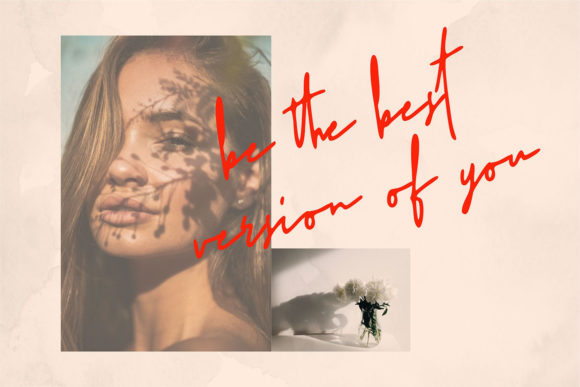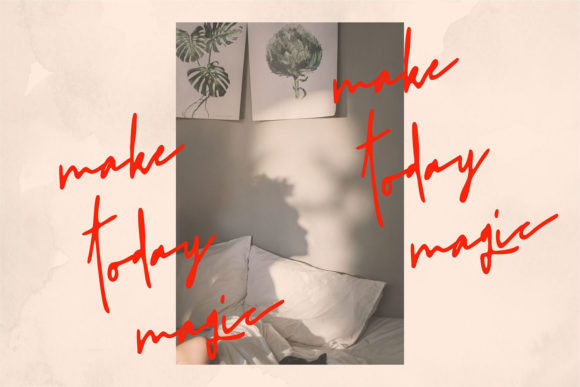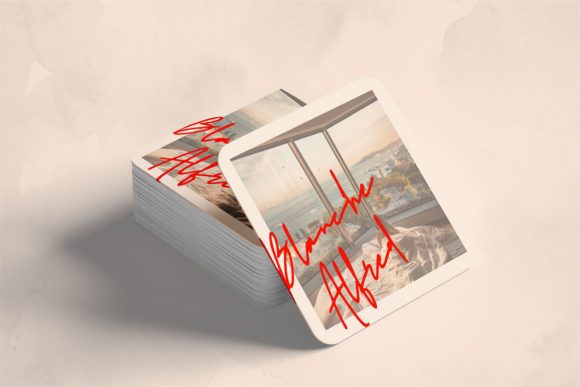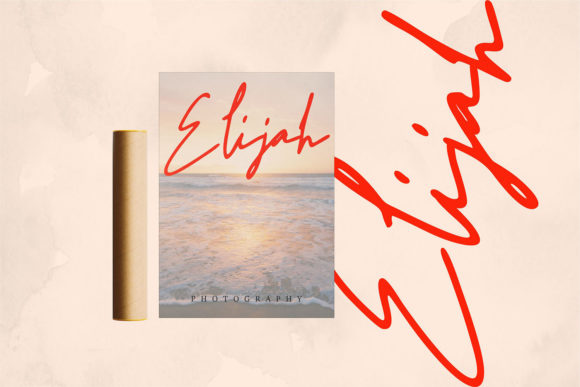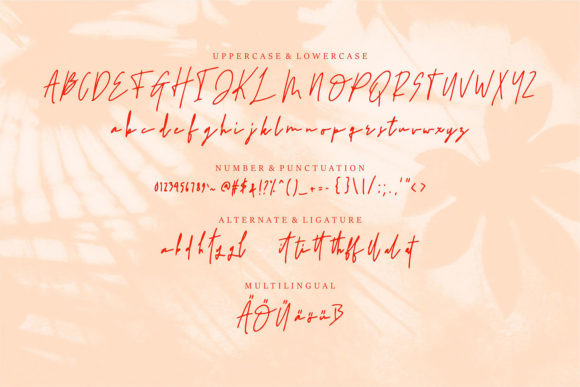
Jullit Font
About Jullit Font
Jullit is a beautiful and relaxed handwritten font, created with the help of a paint brush. Every letter has a unique and lovely touch, which will make your design come alive!